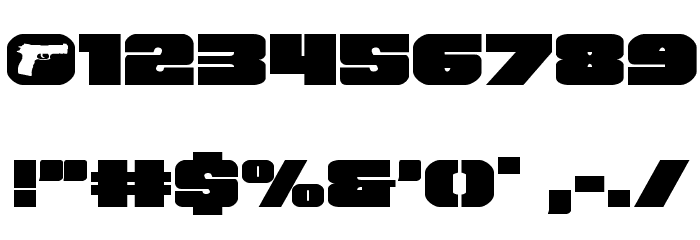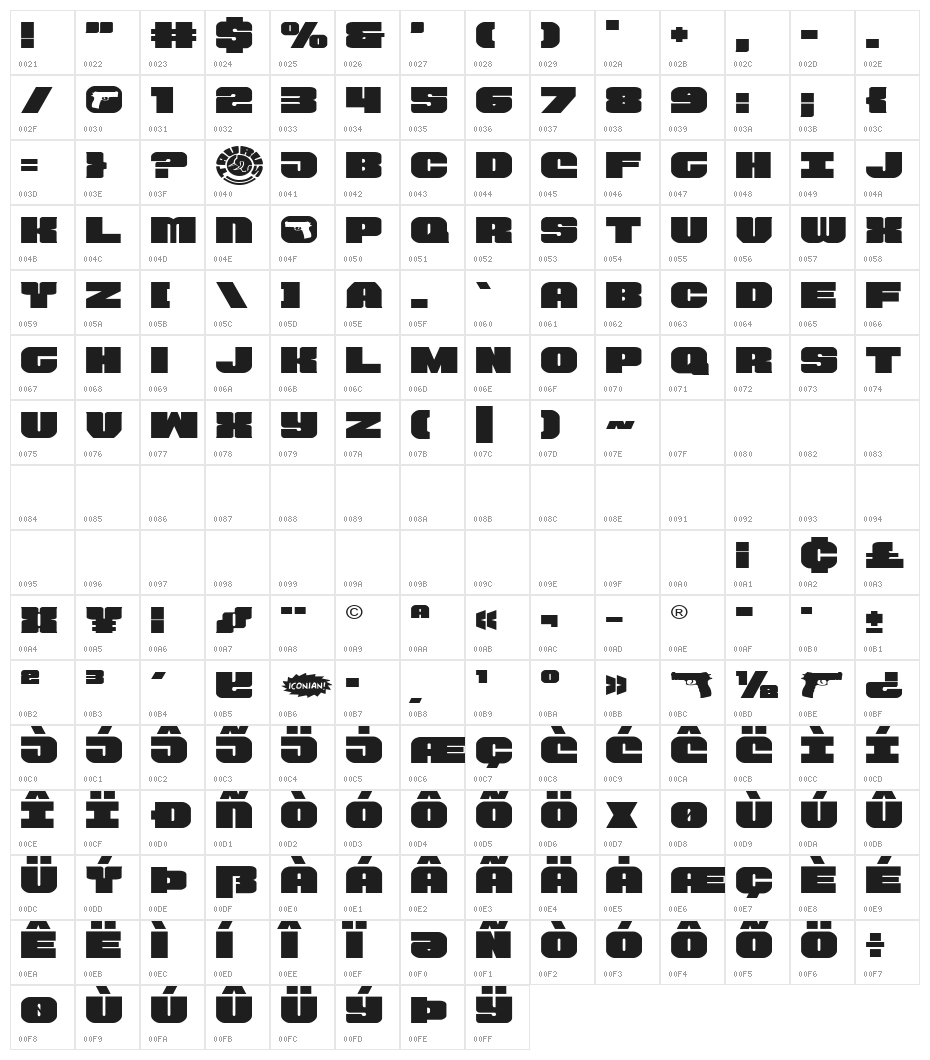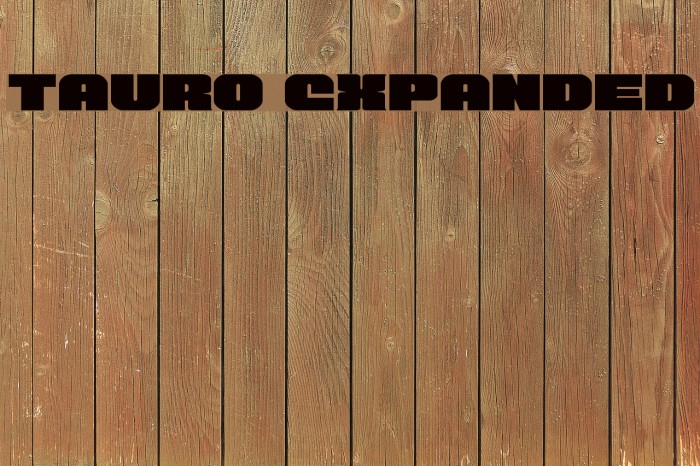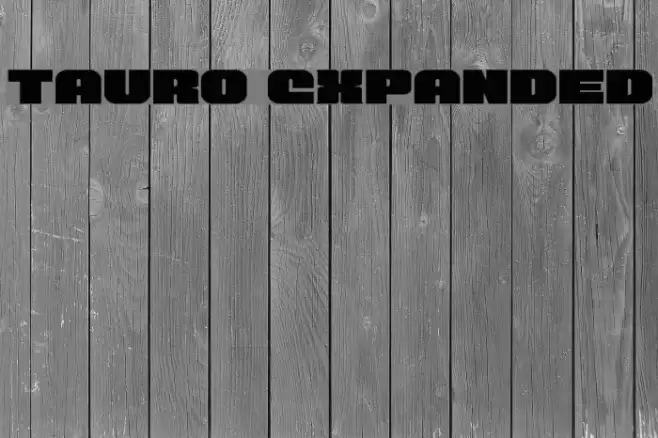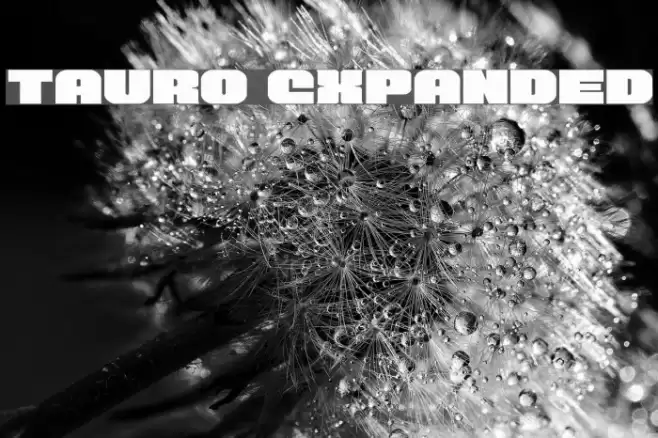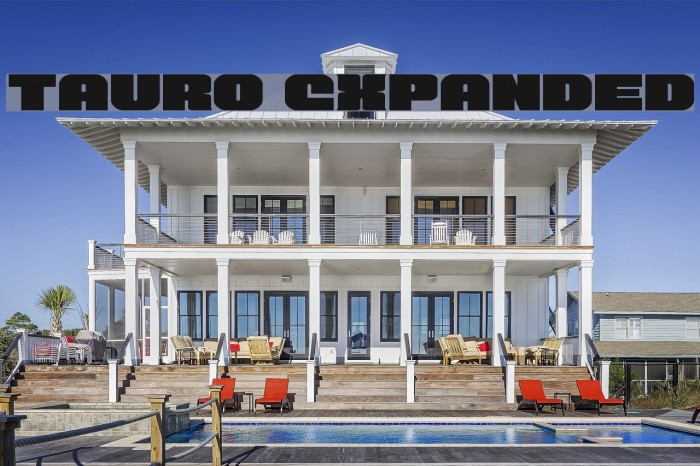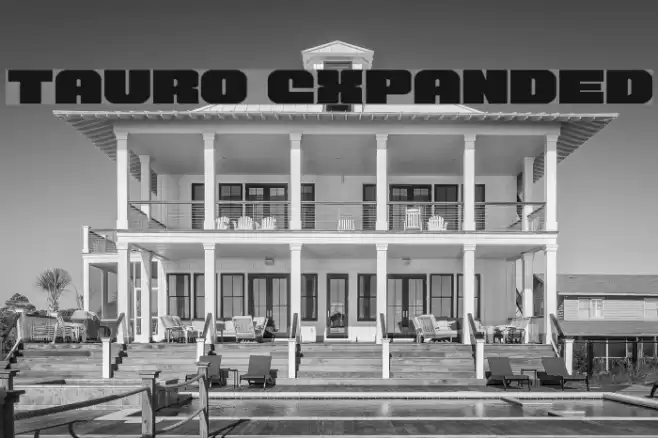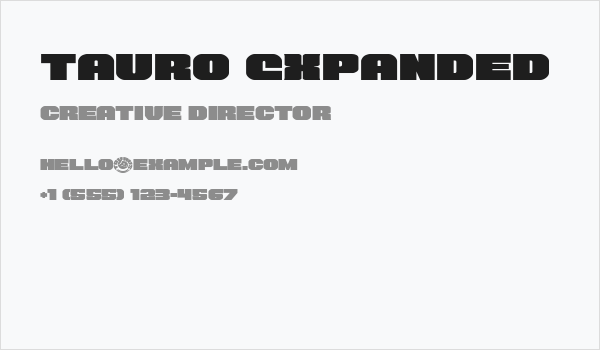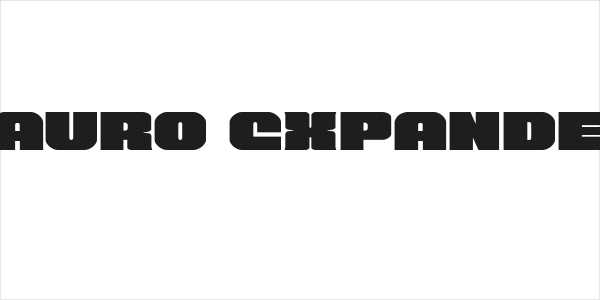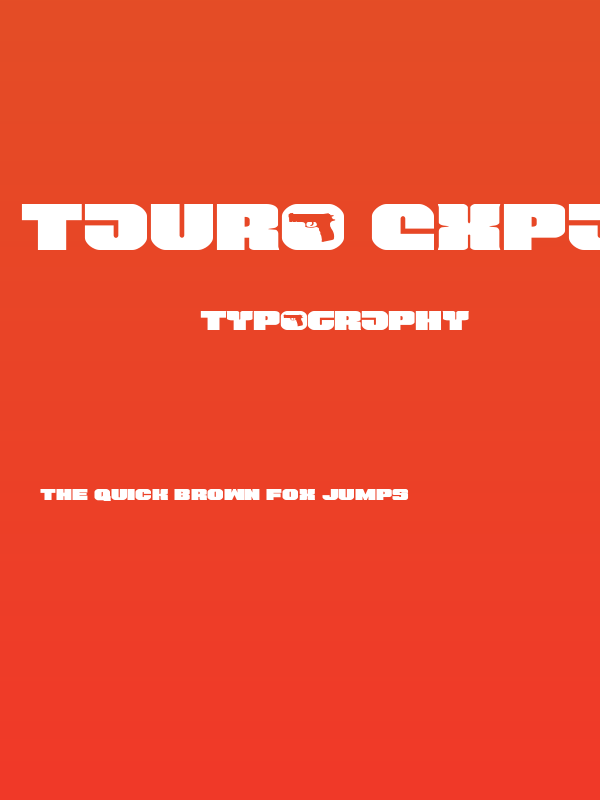
Tauro Expanded Font
Tauro Expanded Description
This font features a bold and robust design with a distinctly modern and industrial feel. The characters are heavily weighted, with thick strokes and a blocky appearance that conveys strength and stability. The uppercase letters are particularly striking, with a uniform height and width that create a cohesive look. The numbers and special characters maintain this bold aesthetic, ensuring consistency across all elements. The font's expanded width allows for excellent readability, making it suitable for impactful headlines and attention-grabbing designs. Its unique style is enhanced by the inclusion of a few playful elements, such as the gun symbol, adding a touch of edginess.
| Proposed Projects | Ideal for posters, branding, logos, and any project requiring a strong, modern aesthetic. |